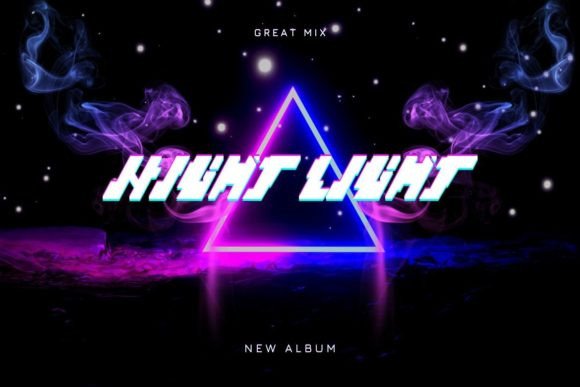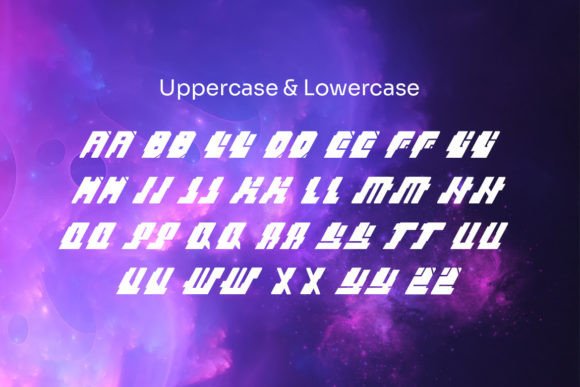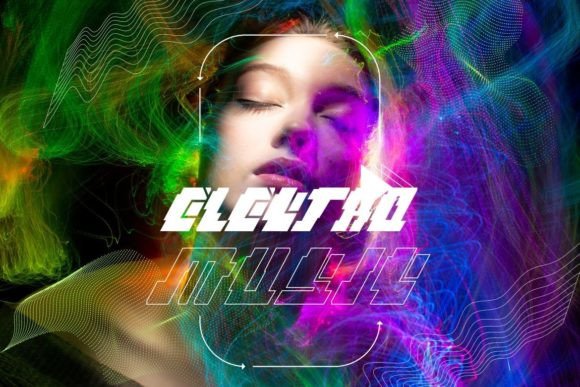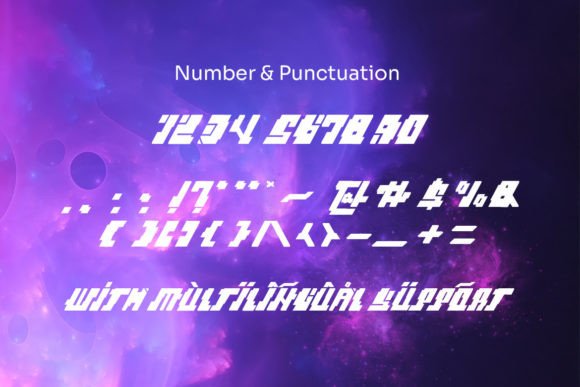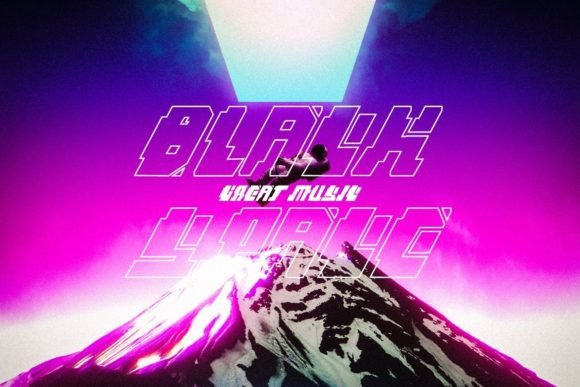
The Ultimate Font for Futuristic Designs: Grease Font
Have you ever been in the middle of a design project, and suddenly, you just can’t seem to find the right font? I recall a particularly frustrating experience while working on a sci-fi themed poster. My client wanted a font that would transport their audience to a futuristic world, but everything I tried seemed to fall flat. That’s when I stumbled upon the Grease font. With its sleek, angular letterforms and unique slanted design, it was the perfect fit for my project. In this article, I’ll share my experience with Grease, its features, and how to make the most of it in your designs.
An Honest Review of Grease Font
What I Love About Grease Font
- ✨ Sleek and modern design: Grease’s sharp edges and slanted letterforms give it a cutting-edge look that’s perfect for sci-fi, gaming, or tech-themed projects.
- ✅ Highly versatile: This font can be used for a wide range of designs, from posters and logos to digital interfaces and presentations.
- 💻 Easy to read: Despite its futuristic look, Grease is surprisingly legible, even at smaller font sizes.
While Grease is an excellent font, it’s not without its quirks. For instance:
- 🤔 Limited use in formal designs: Grease’s edgy design might not be suitable for more formal or traditional projects, such as business cards or resumes.
- ⚠️ Glyph support: Some users have reported issues with glyph support in certain software. However, this can usually be resolved by using OpenType features or glyph panels.
The Backstory of Grease Font
While the origins of Grease font are shrouded in mystery, it’s clear that the designer was inspired by the futuristic and technological advancements of the modern world. The font’s sleek and angular design is reminiscent of sci-fi movies and video games, making it a perfect fit for projects that require a sense of innovation and energy.
| Font Name | Grease Font |
| Author | Yumnacreative |
Q: What type of projects is Grease font best suited for?
A: Grease font is ideal for sci-fi, gaming, tech, and futuristic-themed projects, such as posters, logos, digital interfaces, and presentations.
Q: Is Grease font easy to read?
A: Yes, despite its futuristic design, Grease font is surprisingly legible, even at smaller font sizes.